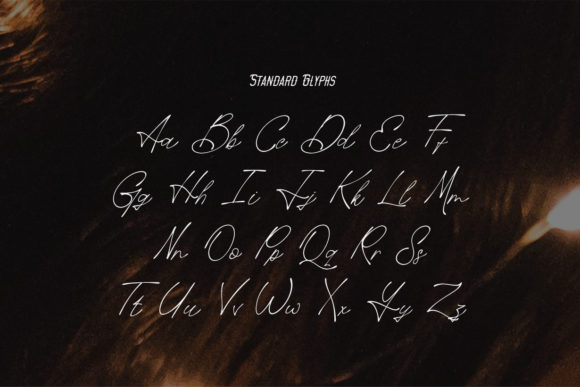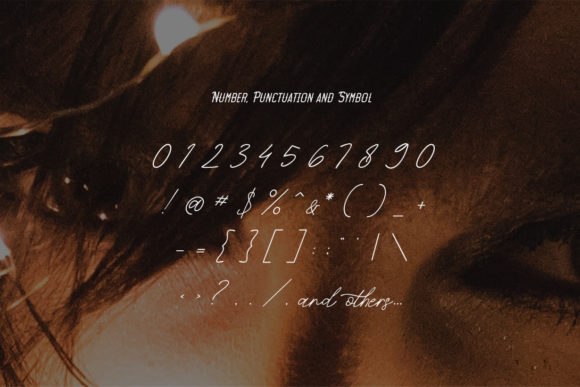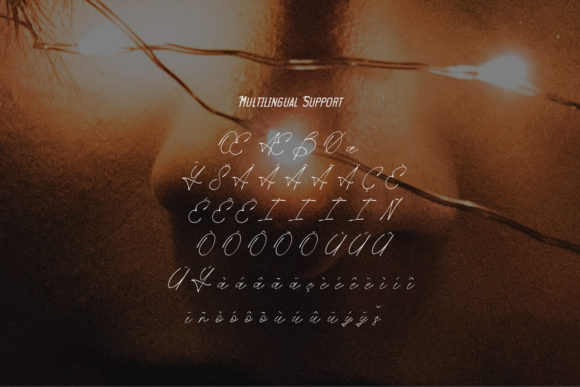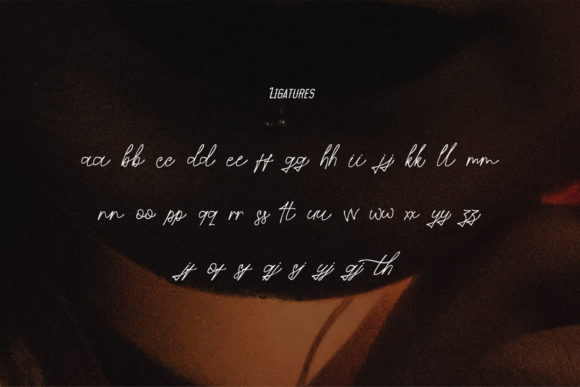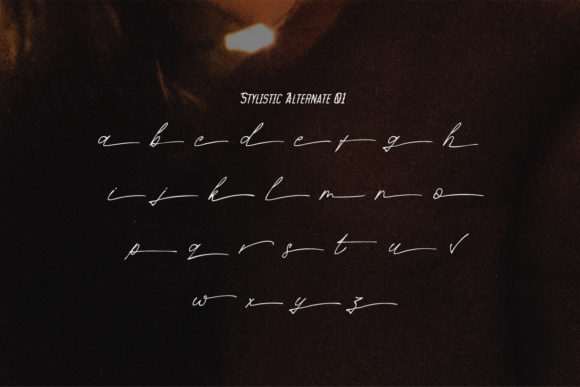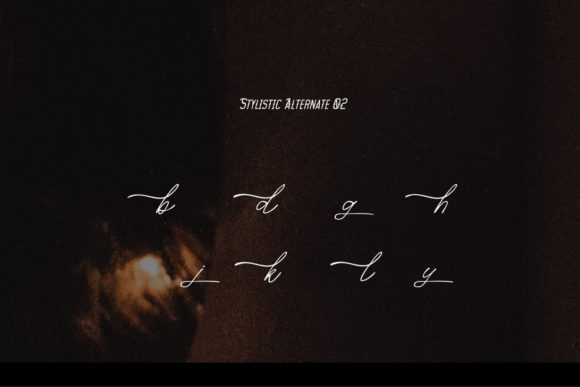
Introduction to Rosanthie Font
Have you ever been working on a creative project, pouring your heart and soul into it, only to realize that it’s missing that special something that would bring it to life? For designers, this moment is all too familiar. But what if you had the perfect design resource to elevate your work and make it truly shine? Enter the Rosanthie Font, a delicate, elegant, and flowing handwritten font that’s sure to captivate your audience.
With its beautiful and well-balanced characters, the Rosanthie Font is the perfect addition to any design project. Whether you’re working on a branding campaign, a website, or a social media graphic, this high-quality font is sure to make your ideas come alive. And the best part? It’s available for free download, making it a valuable resource for designers of all levels.
Key Features of Rosanthie Font
- Unique Hand-Drawn Design: The Rosanthie Font boasts a distinctive, hand-drawn aesthetic, making it an ideal choice for creative projects requiring a personal touch.
- High-Quality Typography: This font features crisp, clear lettering, ensuring that your designs are always of the highest quality.
- Transparent Background: With a transparent background, the Rosanthie Font allows for seamless integration with any design, providing endless possibilities for creative expression.
- Resolution-Independent: This font is designed to be resolution-independent, allowing it to scale seamlessly across various resolutions and devices, from print to digital applications.
- Perfect for Creative Projects: The Rosanthie Font is a versatile design resource, suitable for a wide range of creative projects, including branding, marketing materials, and digital art.
Honest Review: Rosanthie Font
As a designer, I’m always on the lookout for high-quality design resources to enhance my creative projects. Recently, I came across the Rosanthie Font, and I must say, it’s been a great addition to my design toolkit.
What works well with the Rosanthie Font is its elegant and sophisticated design, making it perfect for luxury brands or high-end fashion projects. The font’s smooth curves and subtle details give it a premium feel, which is ideal for creating a sense of sophistication and refinement.
Here are some of the font’s key features:
- ✨ High-quality design that’s perfect for luxury brands or high-end fashion projects
- ✨ Elegant and sophisticated design with smooth curves and subtle details
- ✨ Transparent background, allowing for easy integration with images and other design elements
- ⚠️ Limited character set, which may not be suitable for projects that require a wide range of characters
- ⚠️ May not be as versatile as other fonts, which could limit its use in certain creative projects
Overall, I’m impressed with the Rosanthie Font, and I think it’s a great addition to any designer’s toolkit. While it may have some limitations, its high-quality design and free download make it a valuable resource for designers of all levels.
Tips for Getting the Most Out of Rosanthie Font
For a high-quality design, use Rosanthie Font in conjunction with a transparent background to create a beautiful and eye-catching effect. You can also experiment with different font sizes and colors to add depth and interest to your design.
Rosanthie Font is ideal for creative projects that require a high-quality and unique design resource. It’s perfect for use in logos, branding materials, and marketing collateral. You can also use it in presentations, documents, and social media graphics to add a touch of elegance and sophistication.
What is the resolution of the Rosanthie Font, and can it be scaled without losing quality?
The Rosanthie Font is designed to be high-quality and scalable, making it suitable for use in a variety of creative projects, from small graphics to large-scale signage. The font has a high resolution, which ensures that it will remain crisp and clear even when scaled up or down. However, we recommend using the font at its original size for the best results.